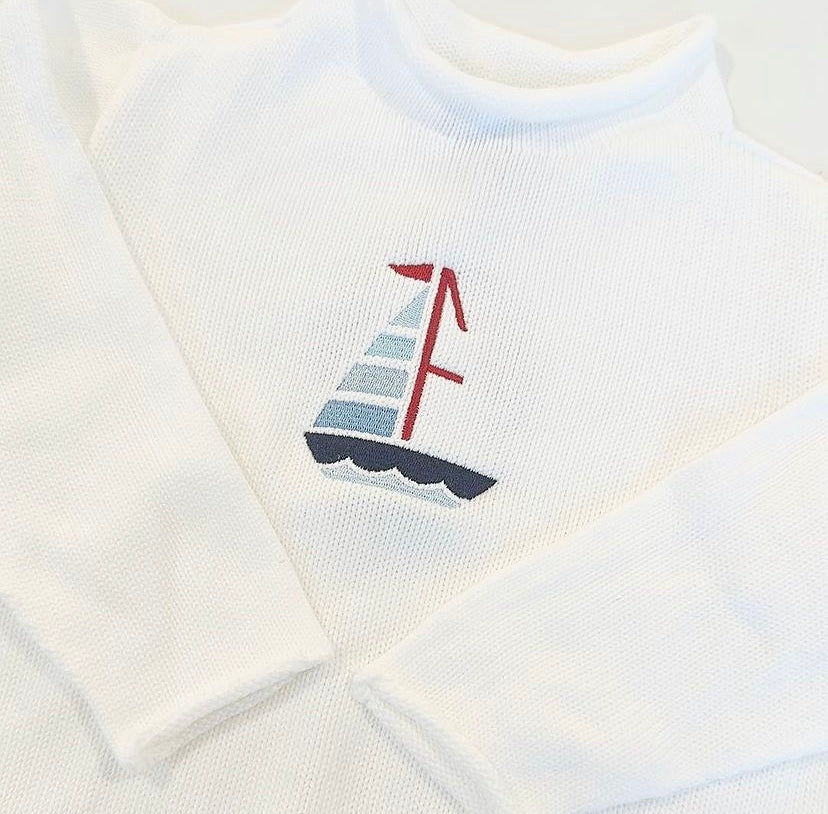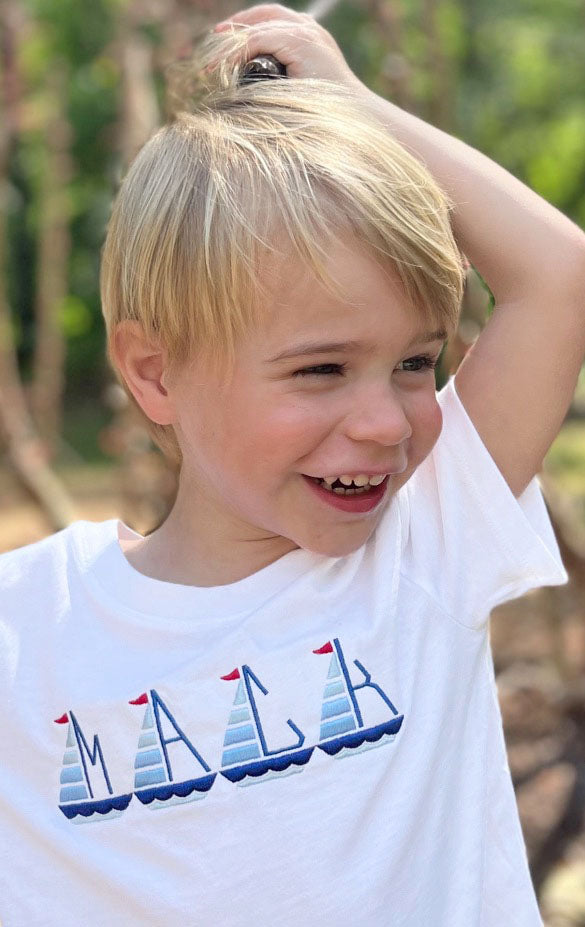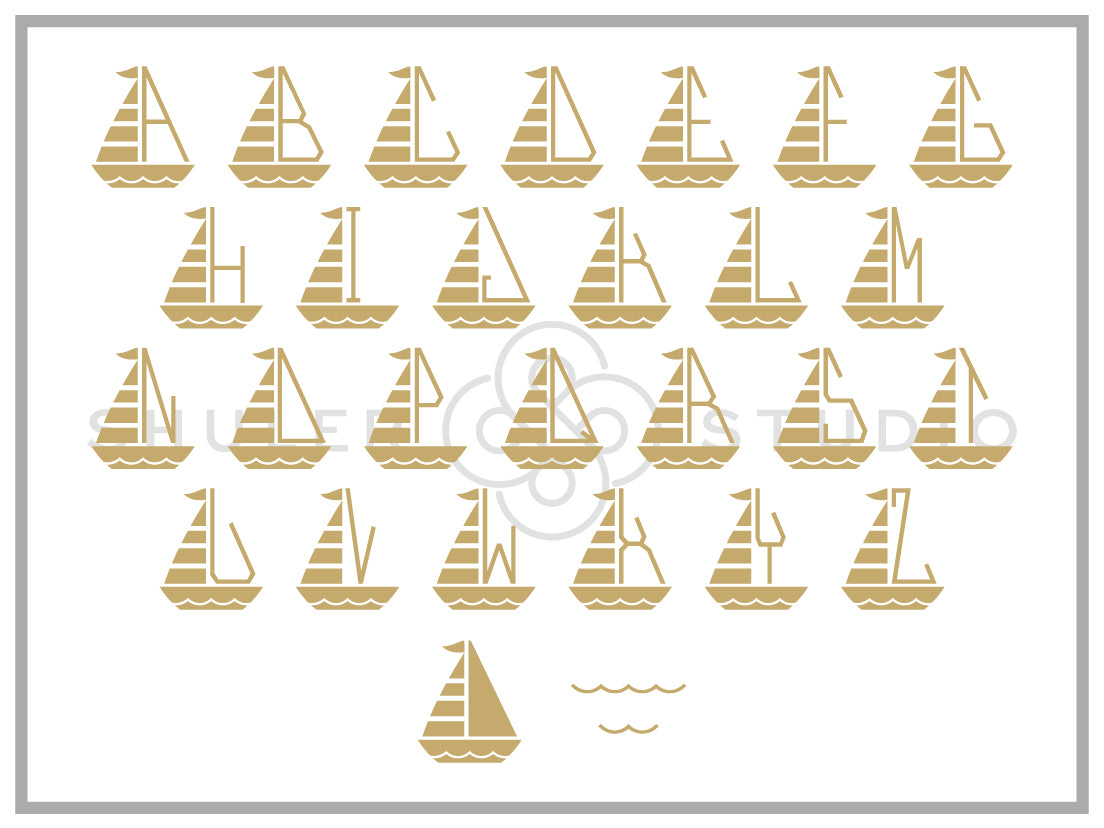
Single Sail Font for Embroidery
This fun font has 26 sailboat letters with a multi-colored sail, 1 sailboat, and 2 wave designs. The details on the sails and boat make this a fabulous way to personalize!
• 1", 2", 3", 4", 5" & 6" height
• 1" and 2 " are satin stitch
• 3", 4", 5", and 6" are fill stitch
• Color-separated
Perfect for embroidery, the careful attention in the digitization of each design makes personalization unique and beautiful!